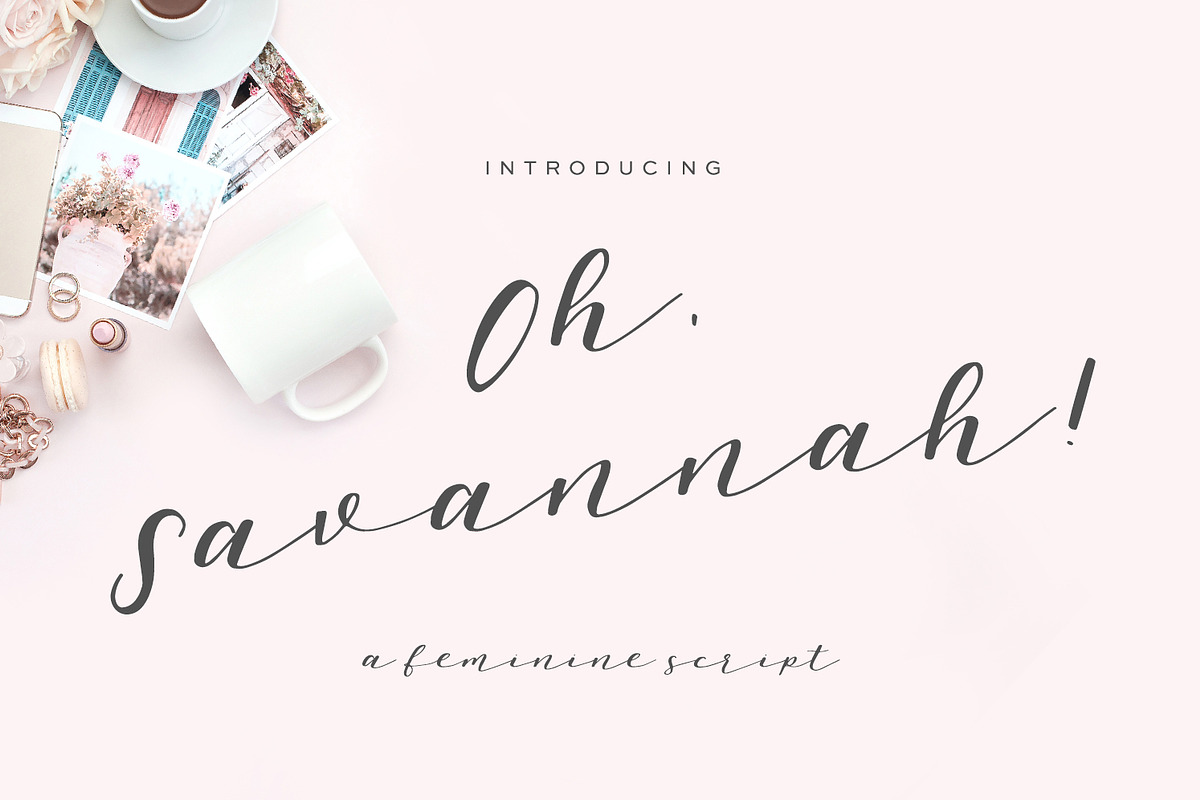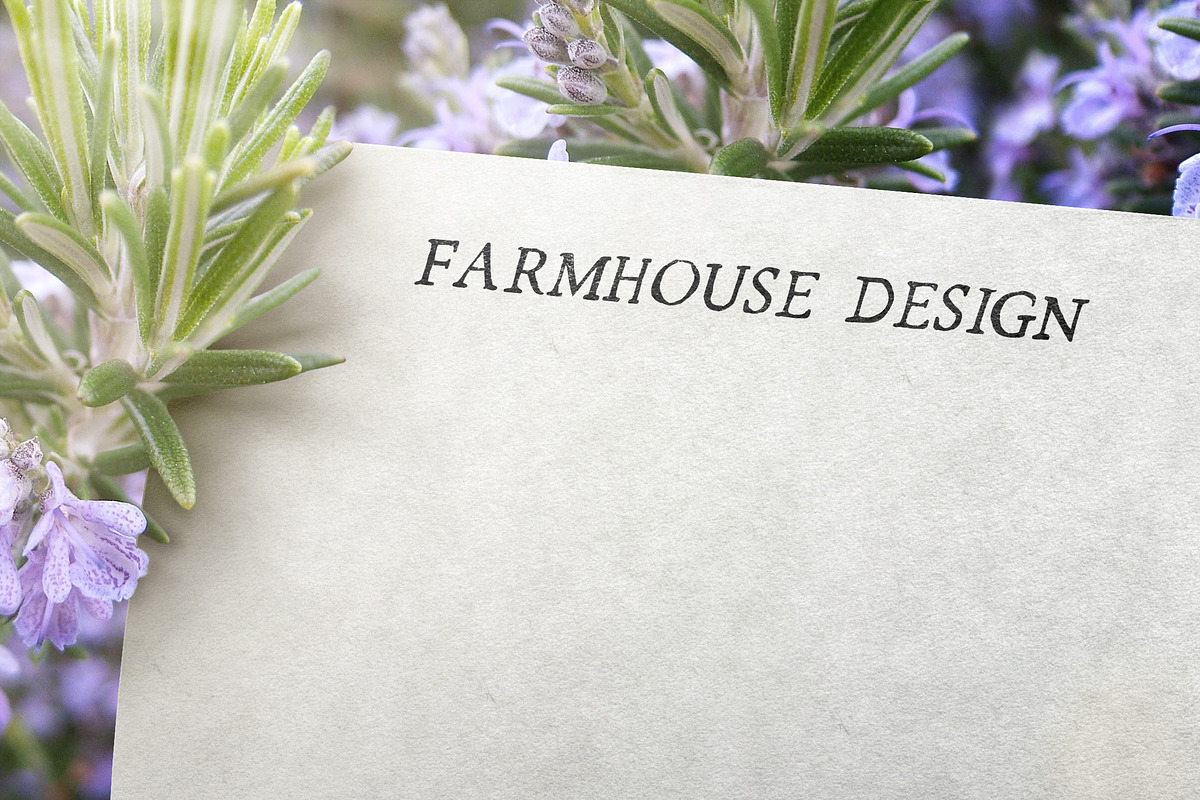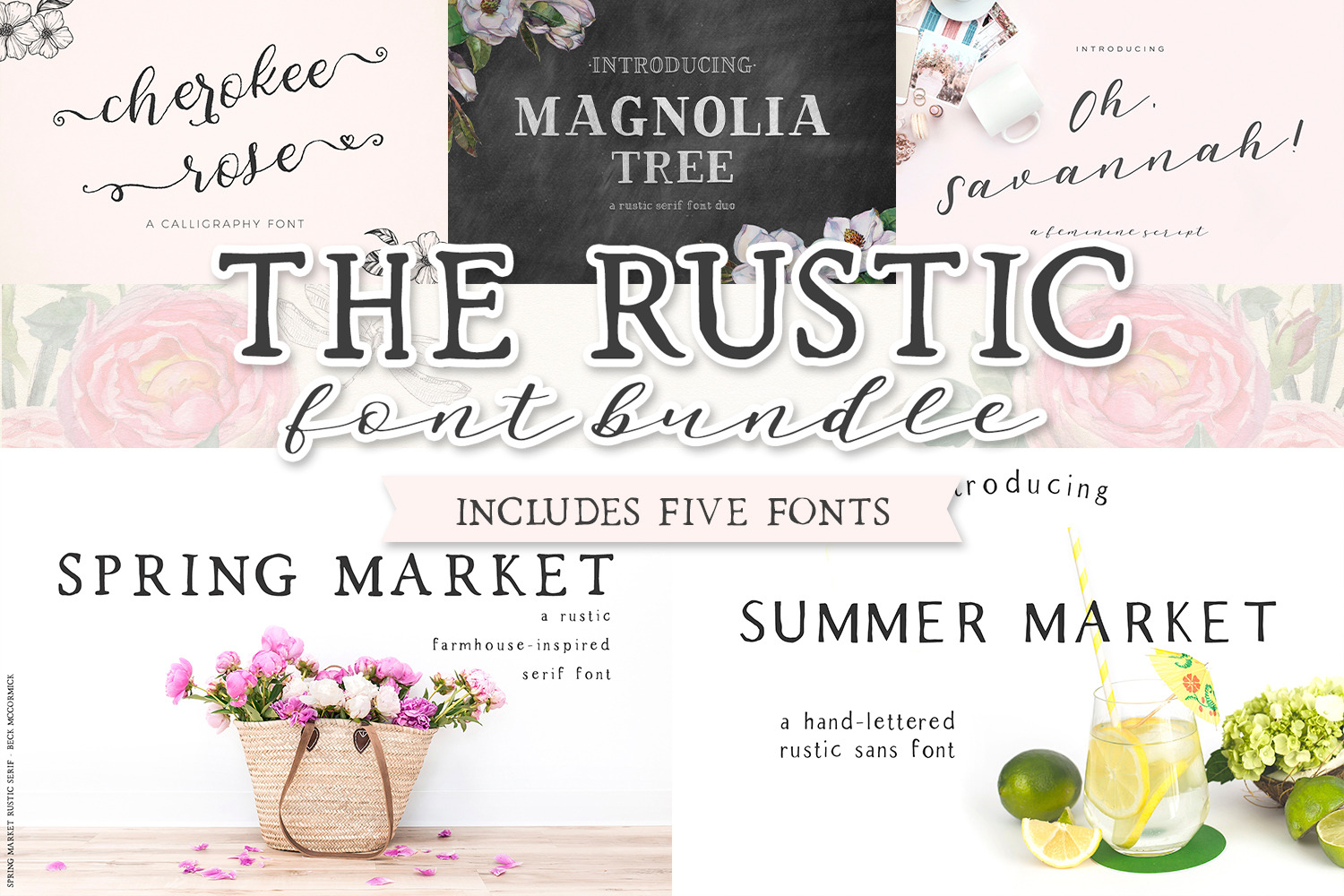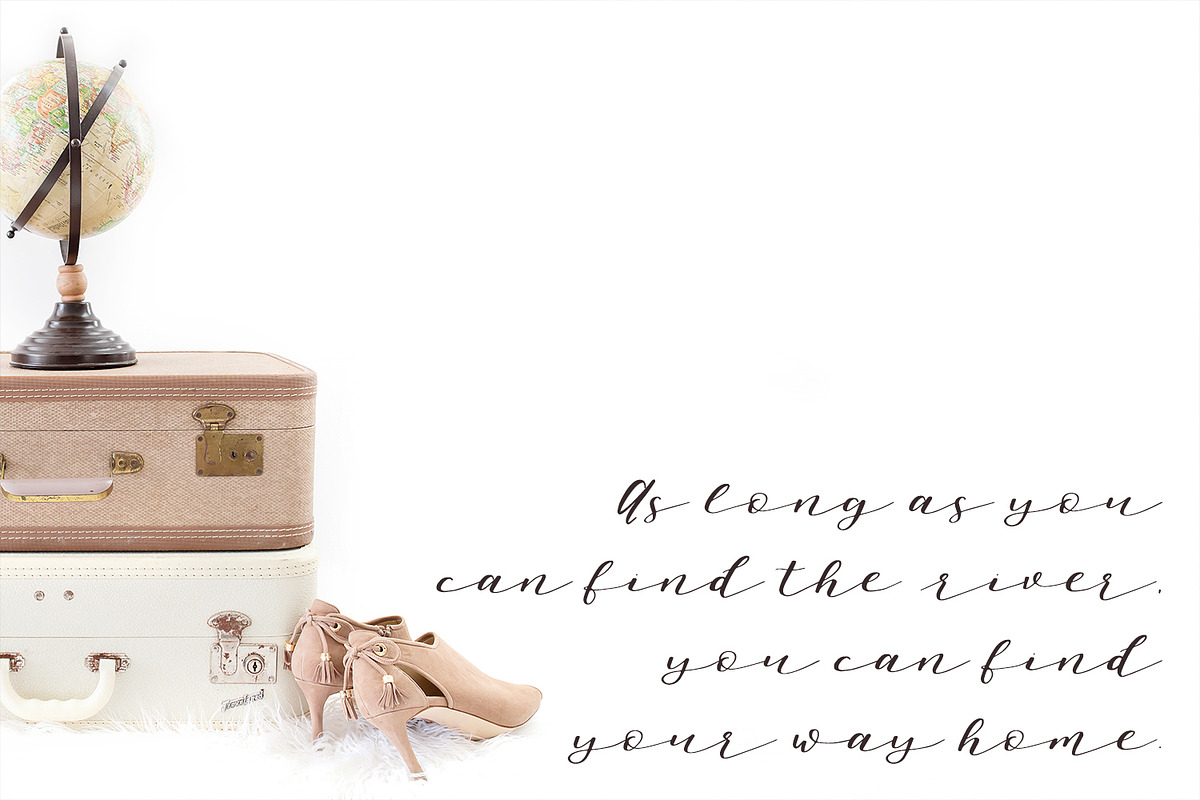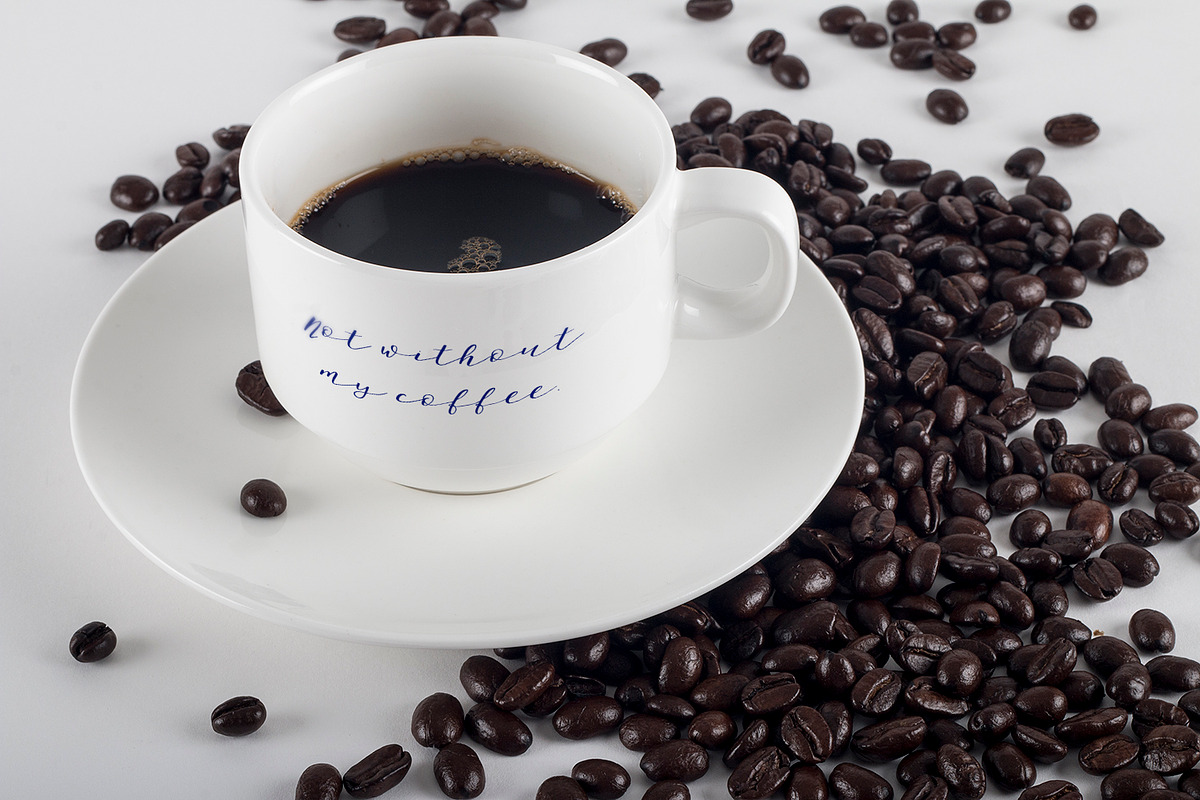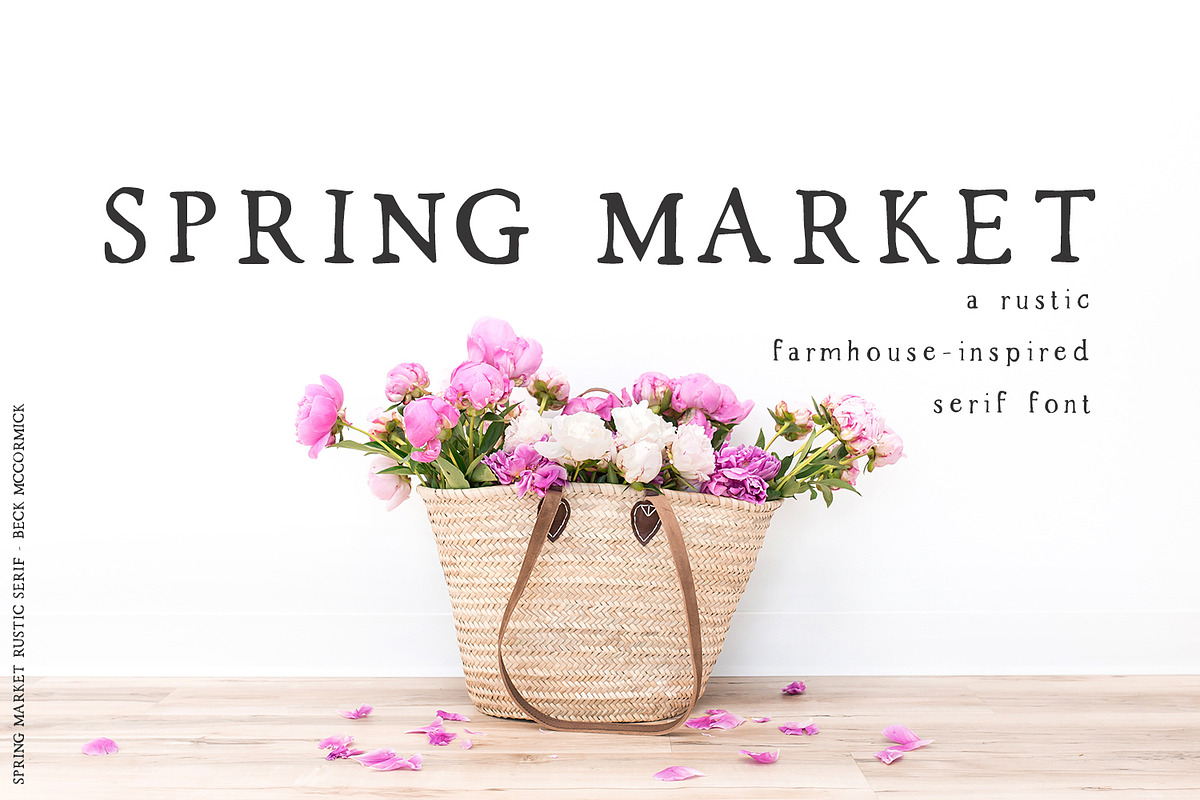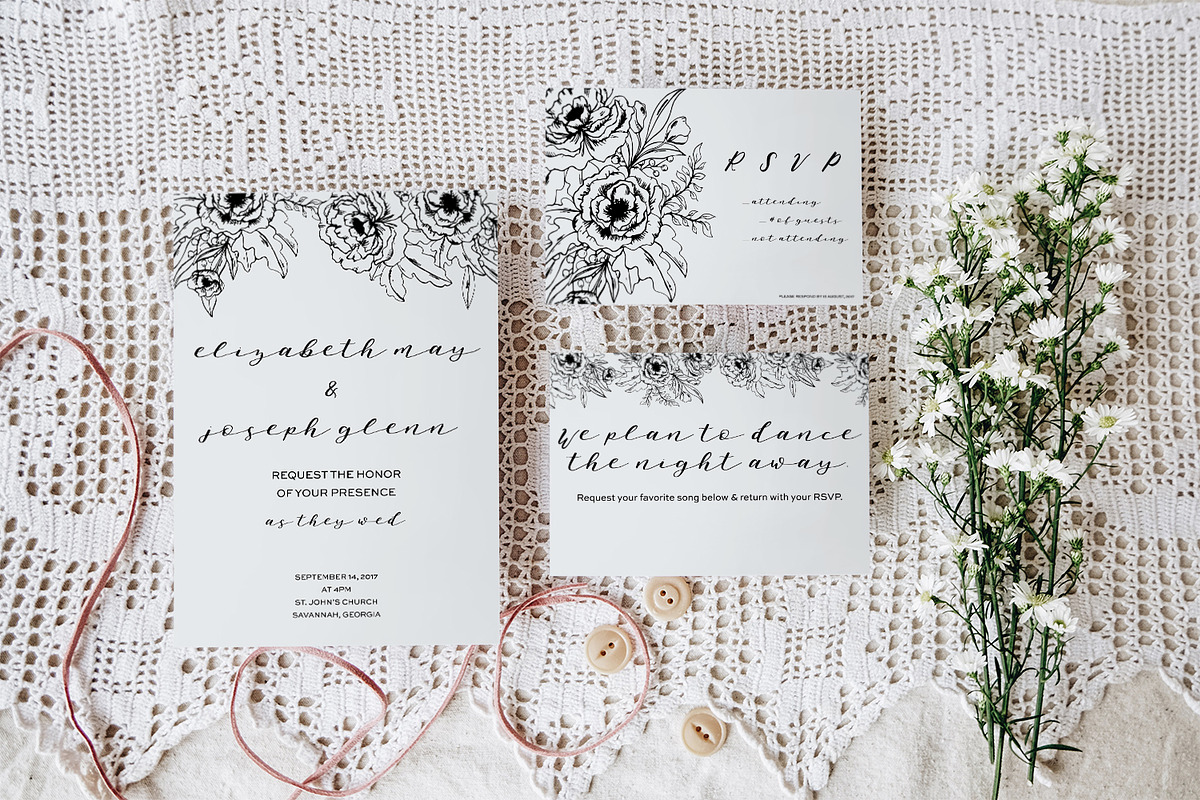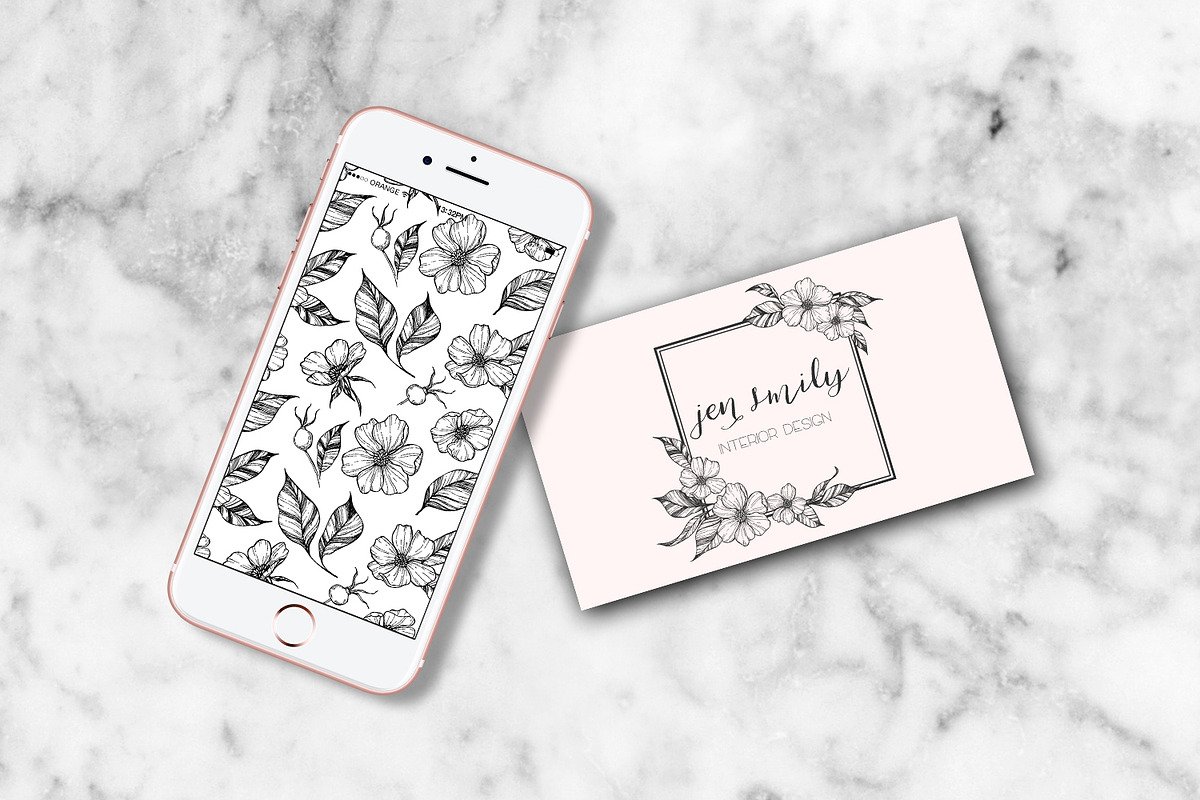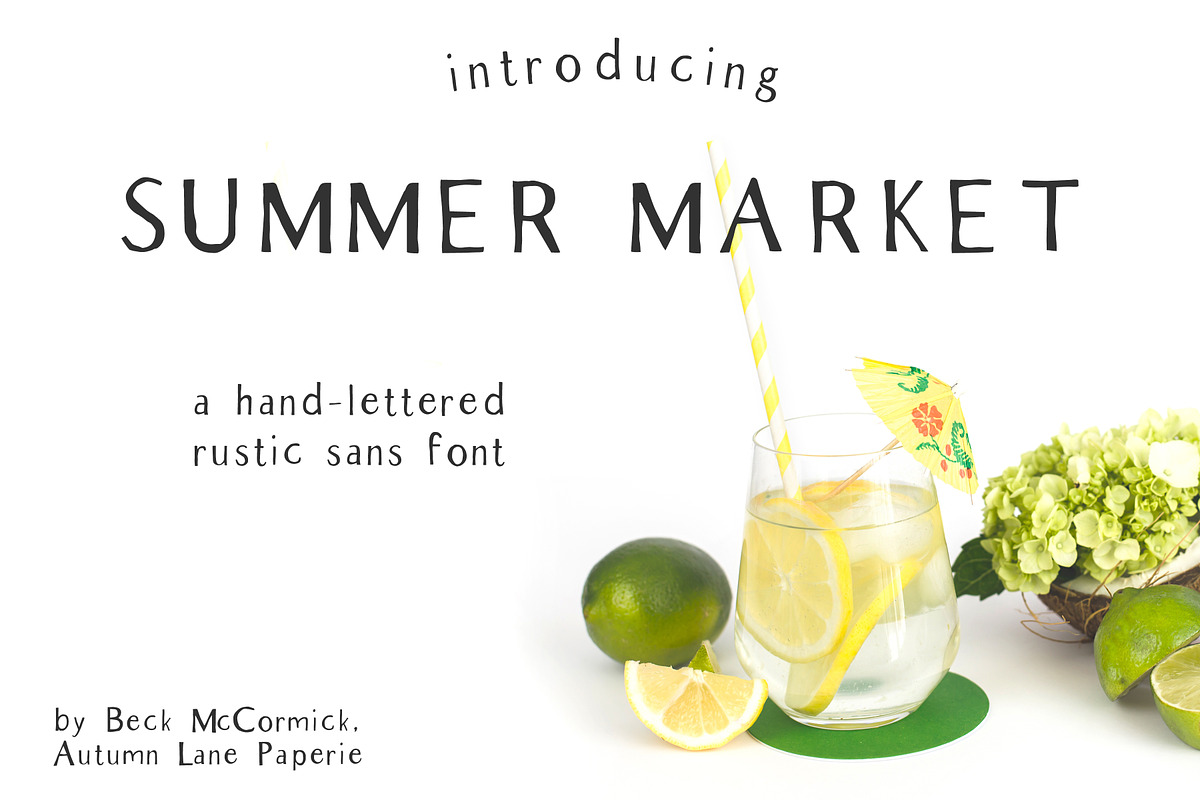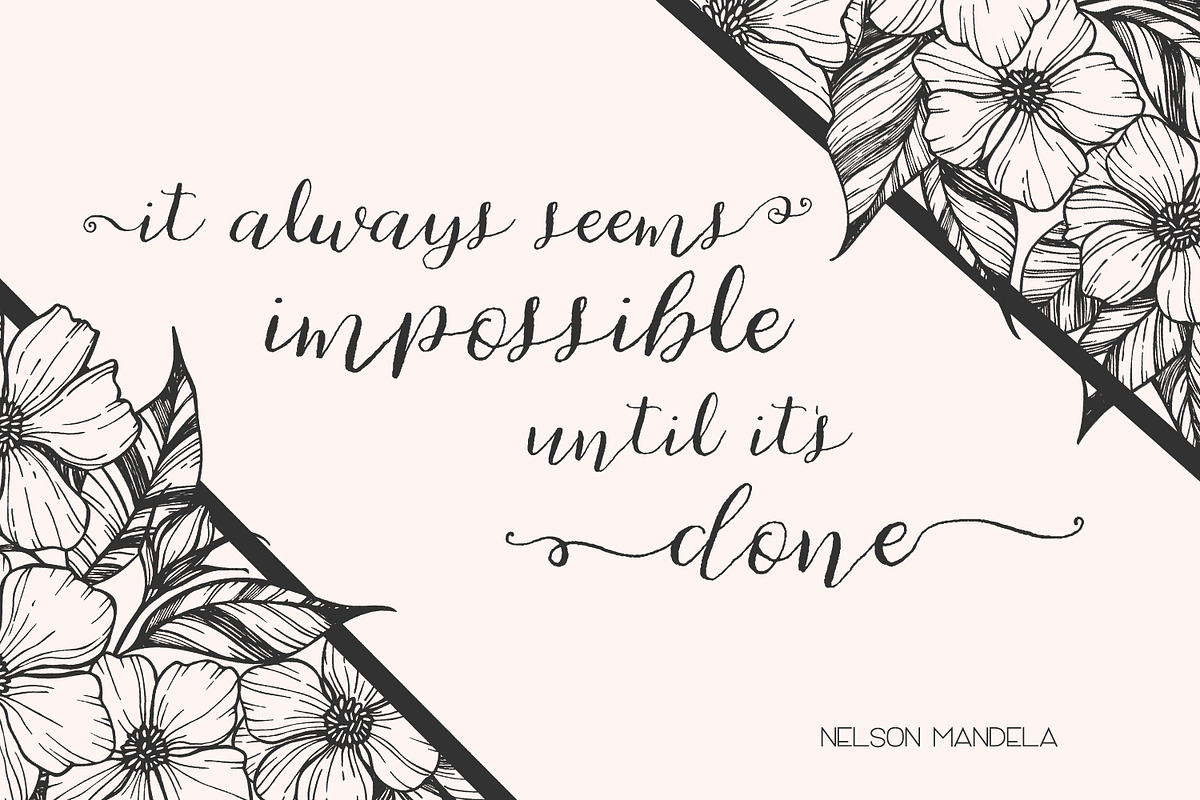
The Rustic Font Bundle
The Rustic Font Bundle by Beck McCormick includes the best farmhouse chic font options for those needing a collection of beautiful, shabby fonts for a variety of projects. You save $$ when purchasing as a bundle, rather than individual fonts!
Make beautiful rustic logos + brands, work on wedding invitation suites, and make beautiful crafty + DIY projects for your home.
This bundle includes:
- Spring Market
- Summer Market
- Magnolia Tree Serif
- Oh Savannah
- Cherokee Rose